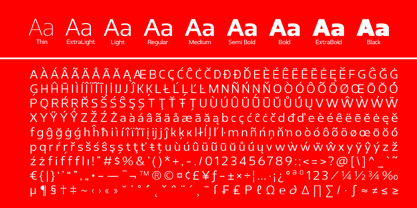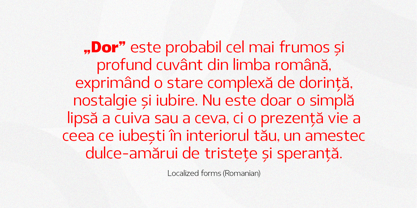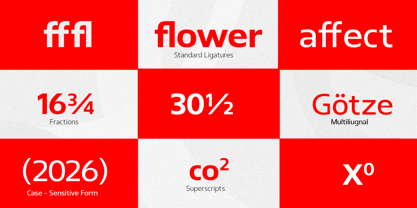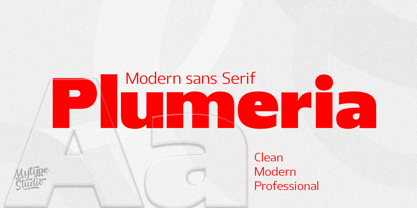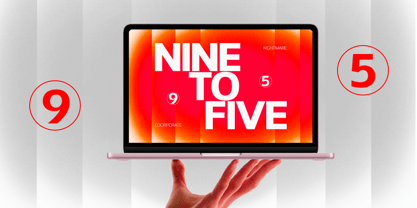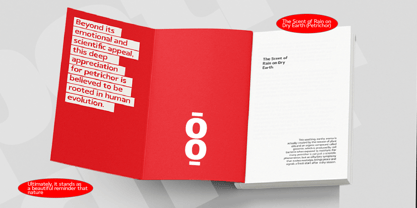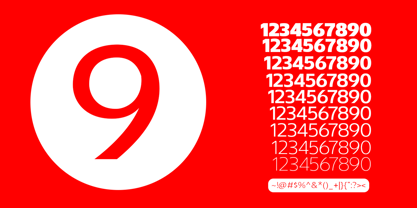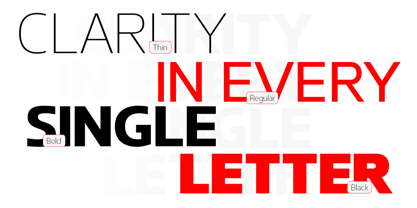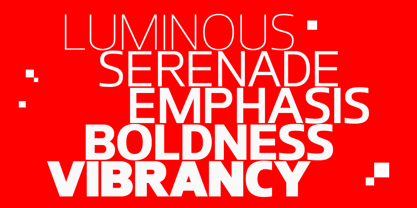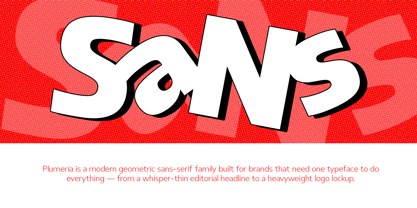
Plumeria
The Plumeria Font Family was designed by Mhd Husaini and published by SimpleType Studios. Plumeria contains 9 styles and family package options. More about this family
Plumeria is a modern sans serif built to be the workhorse of your design system. With 9 weights spanning hairline Thin to a commanding Black, it moves effortlessly from delicate editorial headlines to bold packaging and punchy social media graphics — no font-pairing headaches, no mixing families.
The design balances geometric precision with soft, humanist warmth. The result feels contemporary and confident, never cold. A tall x-height and carefully tuned spacing keep it crisp at small sizes, while the extreme weights give your headlines instant presence.